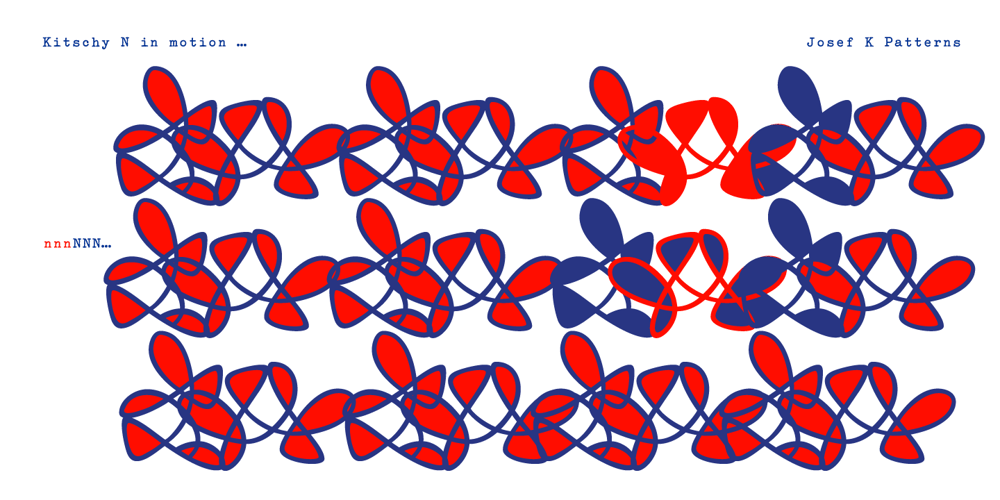
Josef K Patterns Font Family was designed by Julia Sysmäläinen and published by Juliasys. Josef K Patterns contains 3 styles and family package options. Franz Kafka’s manuscripts have always been a source of inspiration for designer Julia Sysmäläinen. At first she was just interested in literary aspects but later she noticed that content and visual form can not be separated in the work of this ingenious writer. Analyzing Kafka’s handwriting at the Berlin National Library, Julia was inspired to design the typeface FF Mister – by now a well known classic. Over the years, FF Mister K became a handsome typeface family and even produced offspring: the Josef K Patterns. Some of Kafka’s most expressive letterforms were the starting point for these decorative ornaments. How do the Patterns work? Outlines and fillings correspond to the uppercase and the lowercase letters on your keyboard. You can use them separately or layer them on top of each other. If you write a line of “pattern-text” in lowercase and repeat it underneath in uppercase you get a row of fillings followed by a row of outlines. Now you can color them and then set line space = 0 to get a single line of layered colored ornaments. Alternatively, activating OpenType / stylistic set / stylistic alternates will also unite the two lines to a single layered line. Further magic can be done with OpenType / contextual alternates turned on. On the gallery page of this font family is a downloadable Josef K Patterns.pdf with an alphabetical overview of forms. Hundreds of patterns are possible … we’d love to see some of yours and present them here on the website!